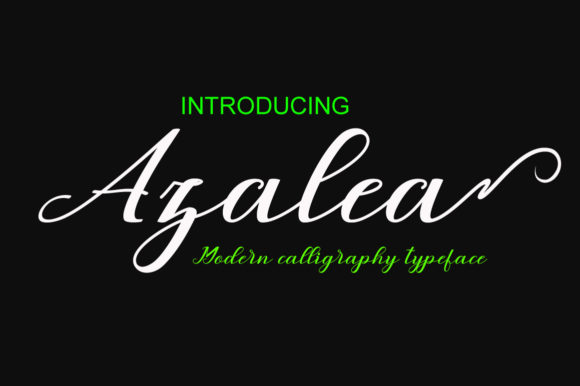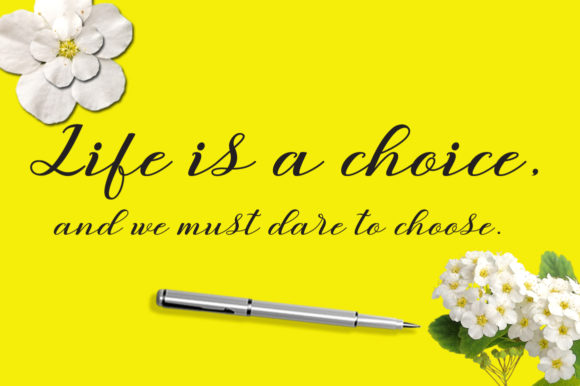
Azalea Font
About Azalea Font
The Azaleais an amazing calligraphy typeface. It has a beautiful and elegant touch which can be used to add a feminine touch to your designs.